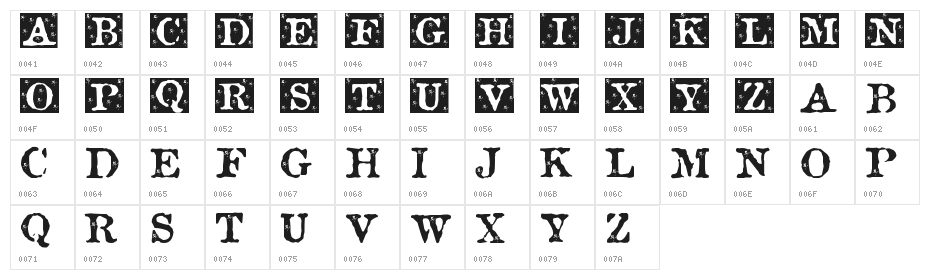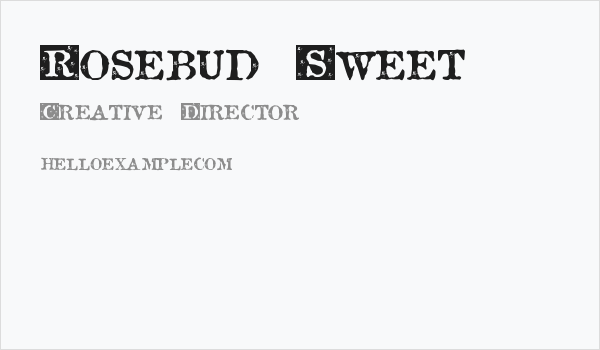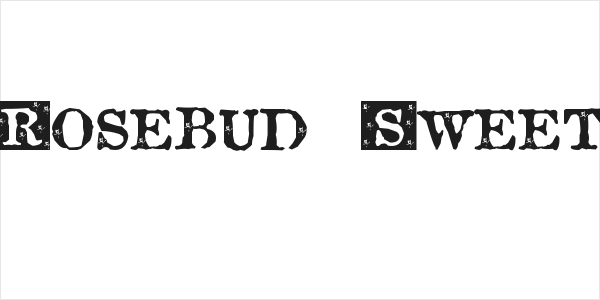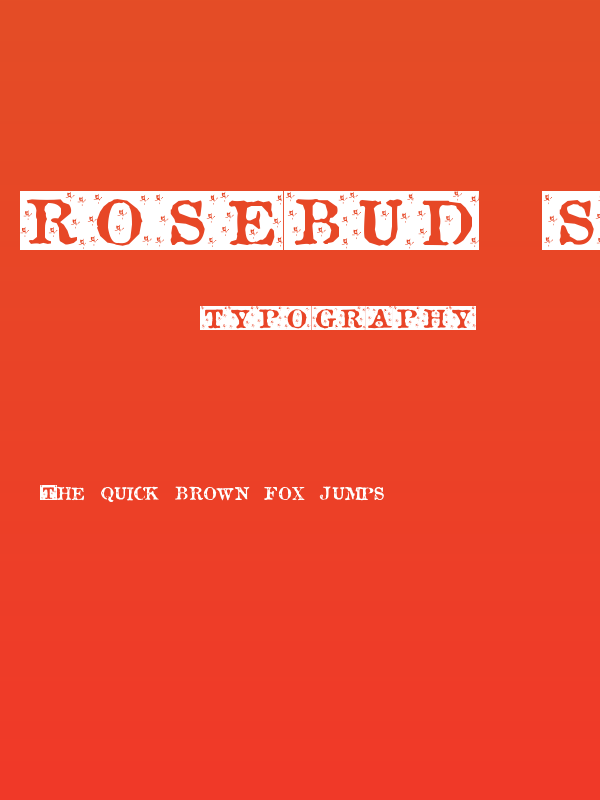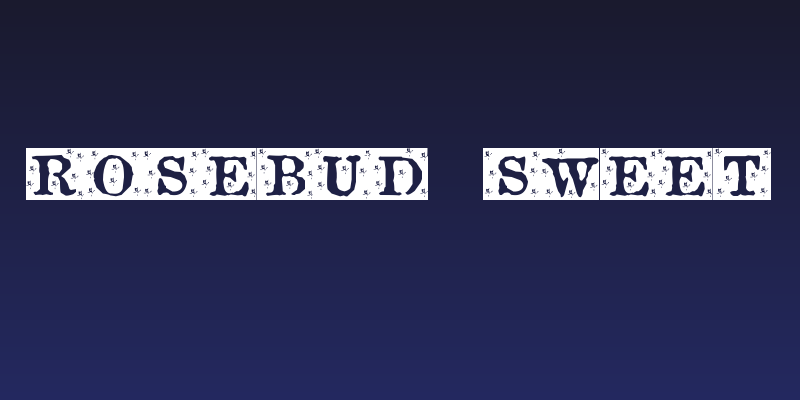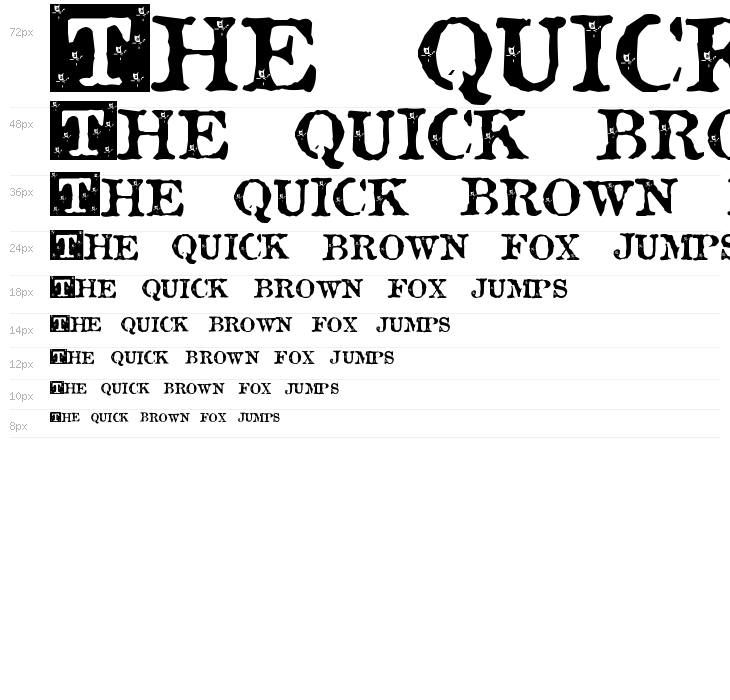
Rosebud Sweet Font
Rosebud Sweet Description
This font features a bold and distressed style, reminiscent of vintage typewriter or old western aesthetics. Each character is uniquely textured, giving it a rugged and worn appearance. The uppercase letters are prominently displayed with a consistent width, while the decorative elements within each letter add a layer of complexity and visual interest. The overall design suggests a sense of nostalgia and ruggedness, making it suitable for projects that require a touch of antiquity or a handcrafted feel.
| Proposed Projects | Ideal for vintage posters, retro-themed branding, rustic product packaging, and creative design projects that require a distinctive, aged look. |